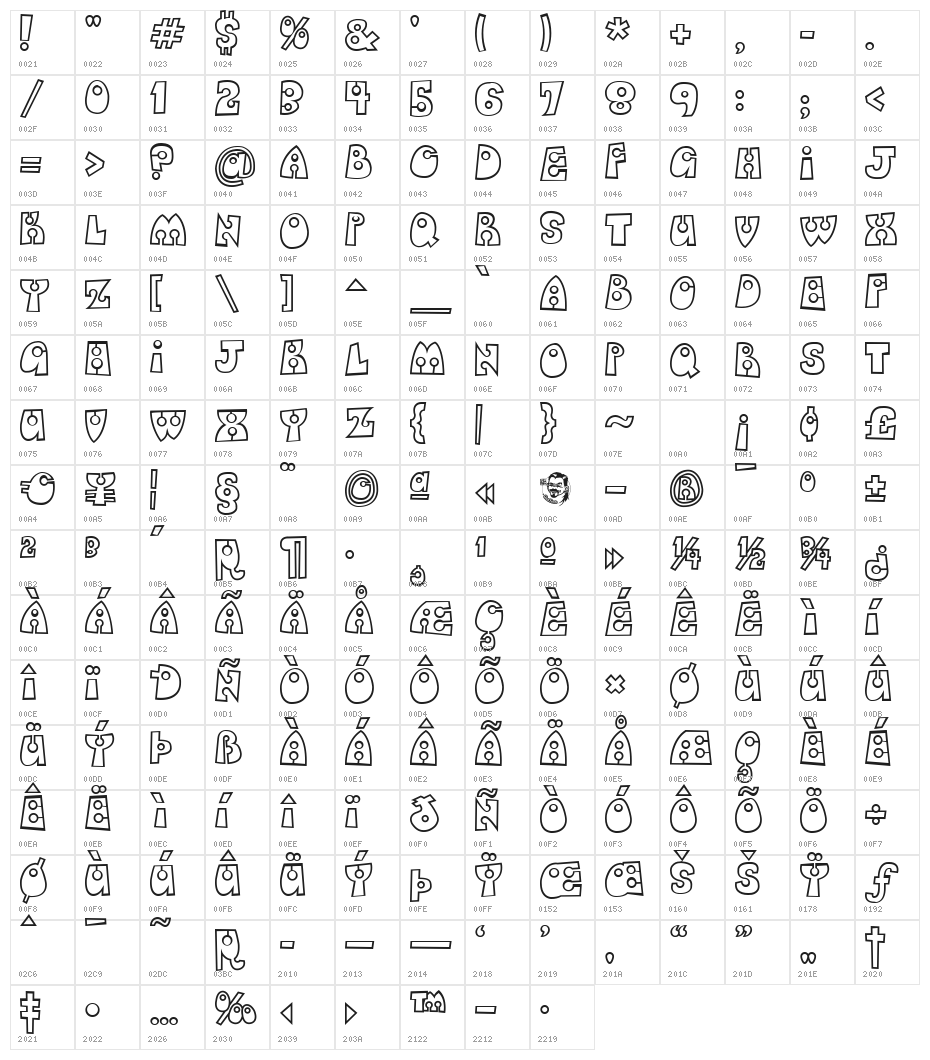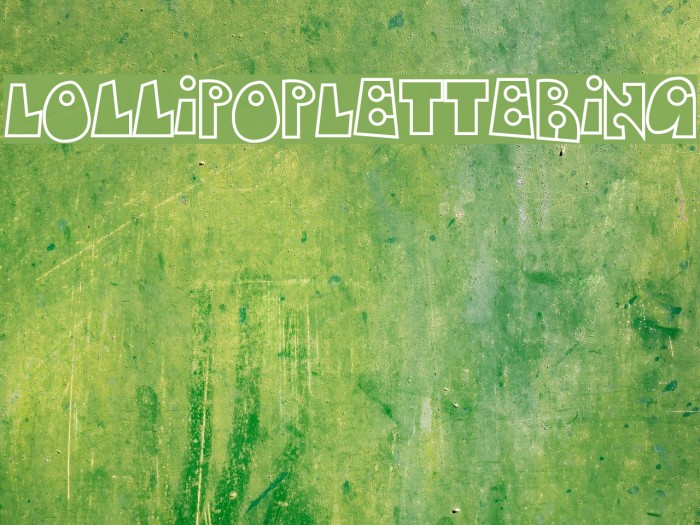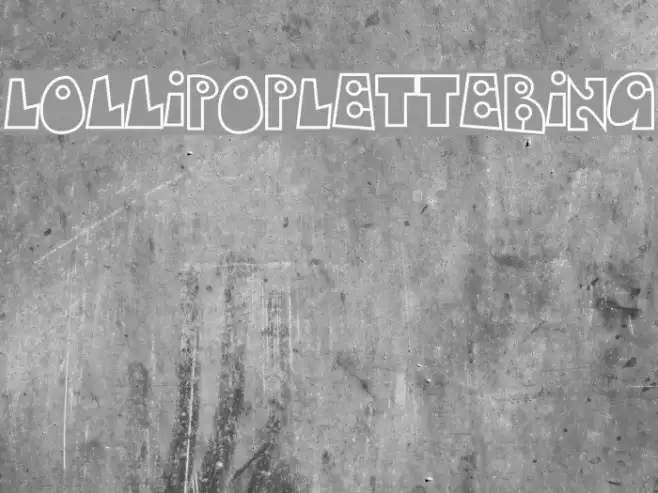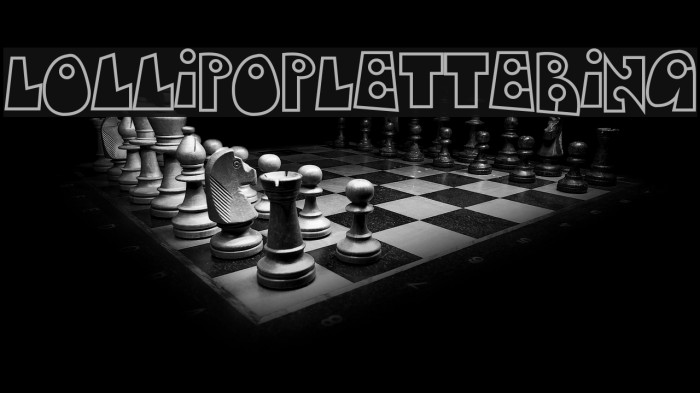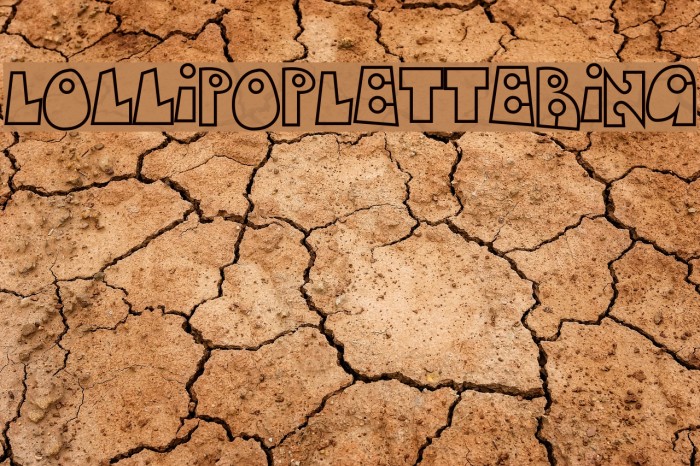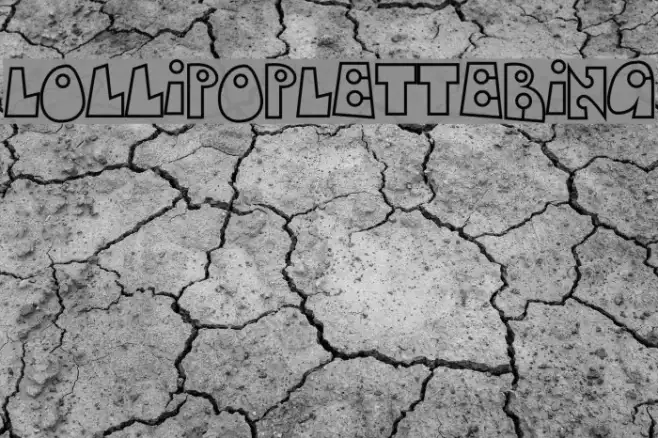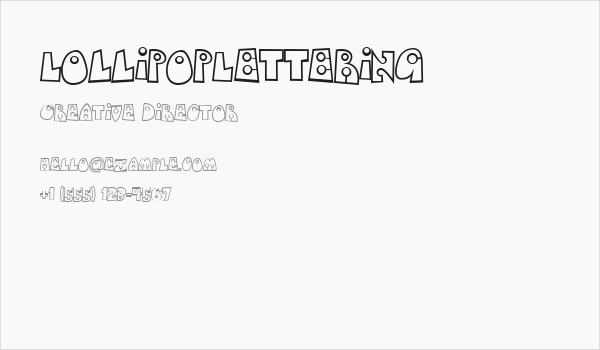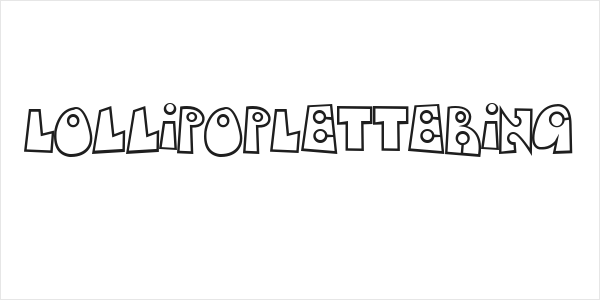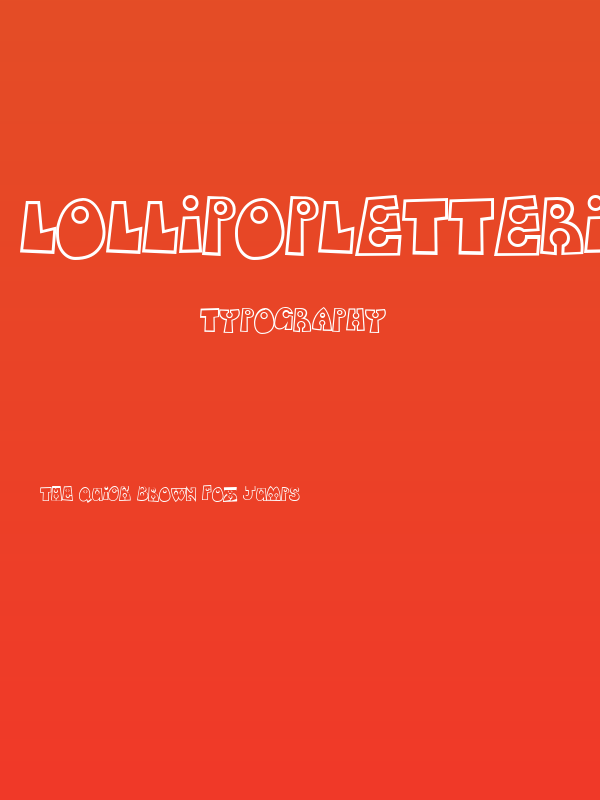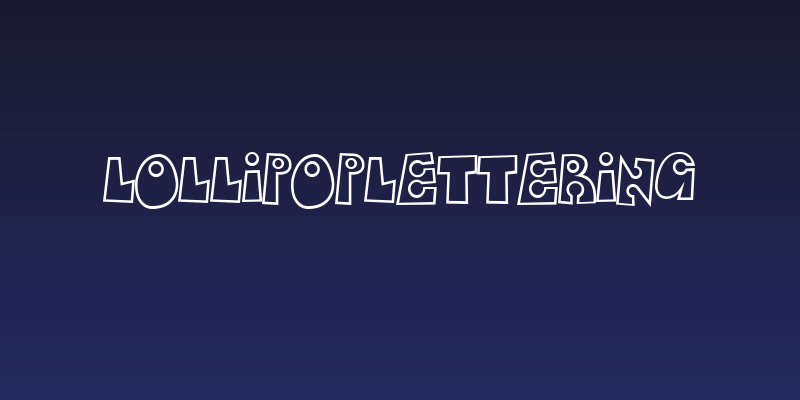
LollipopLettering Font
LollipopLettering Description
This playful and whimsical font features bold, rounded characters with a distinctive outline style. Each letter is designed with a unique, bubbly appearance, giving it a fun and lively feel. The font includes both uppercase and lowercase letters, numbers, and a variety of special characters. Its design is reminiscent of cartoon or comic book styles, making it ideal for projects that require a touch of humor or lightheartedness. The characters are evenly spaced, providing a balanced and cohesive look across all text. The font's thick strokes and outlined design ensure high visibility and readability, even at smaller sizes.
| Proposed Projects | Perfect for children's books, comic strips, party invitations, and playful branding. |